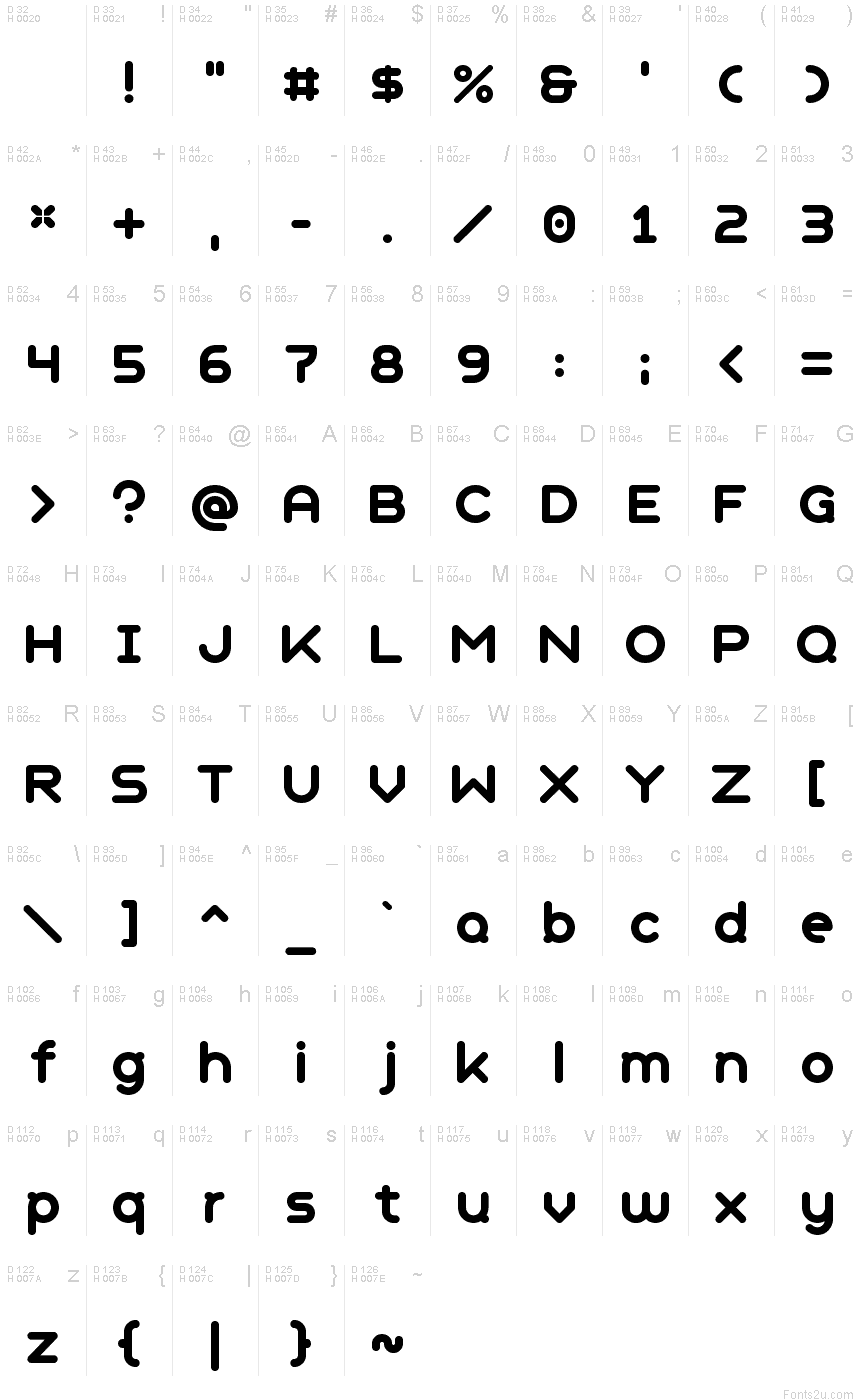
GeometrySoftPro-BoldN font
The Geometry Pro family has been designed to be the final word in purely geometric fonts - this rounded “Soft” sub-family contains three weights each with 6 variants and is the ultimate web 2.0 style font collection.
Please enjoy this free “Bold N” version - this “notched” variant lets you test out the quality of the outlines and the language support.